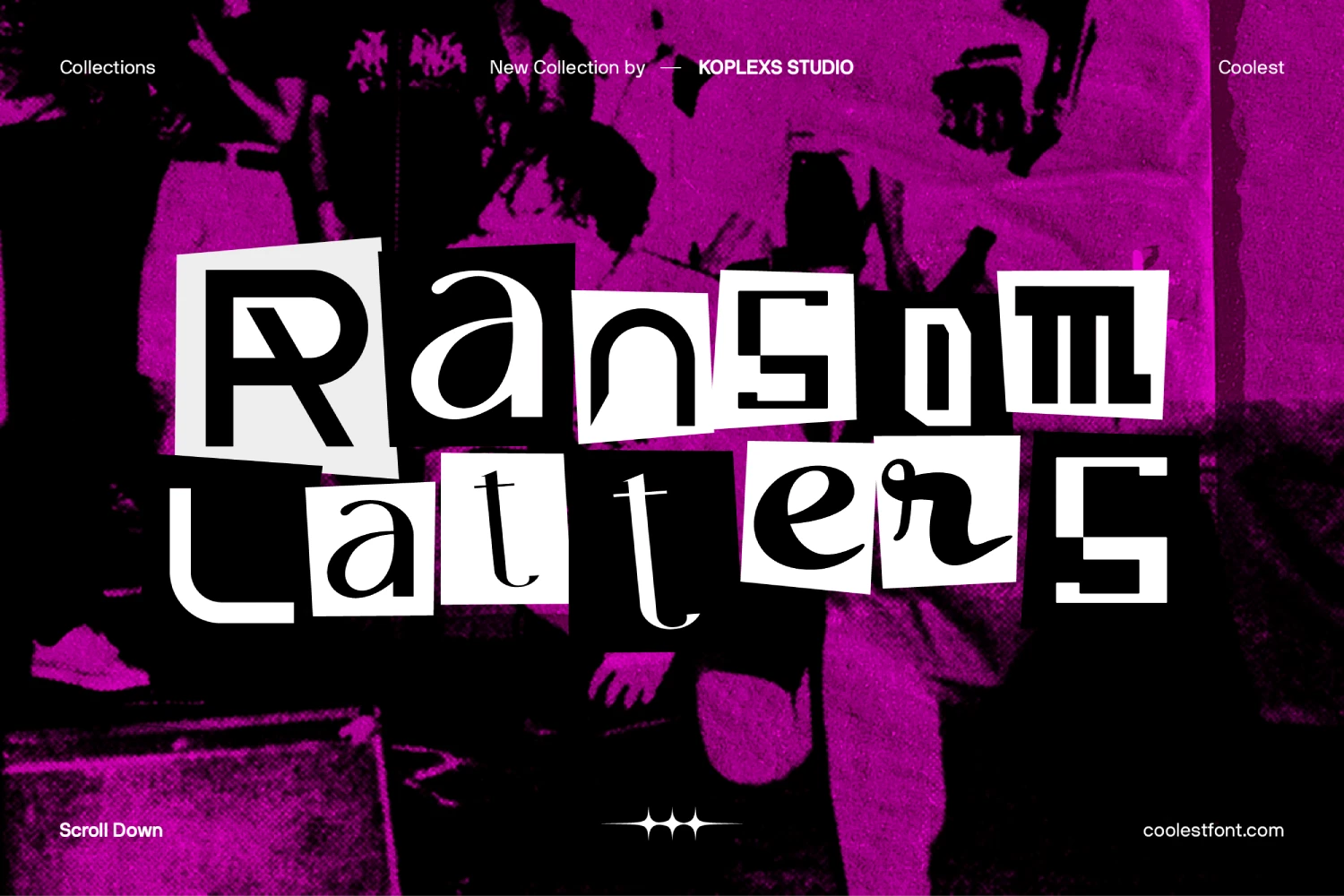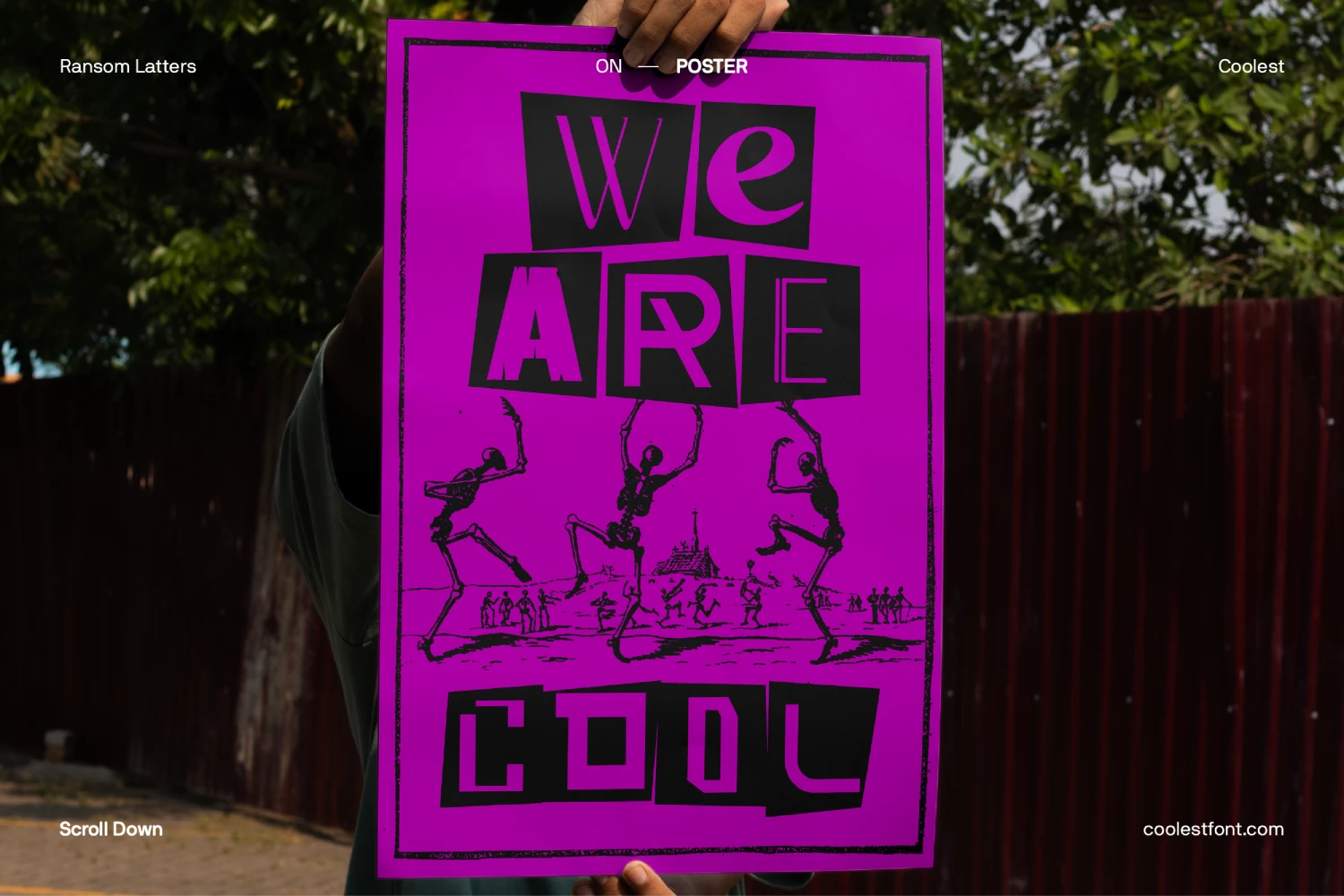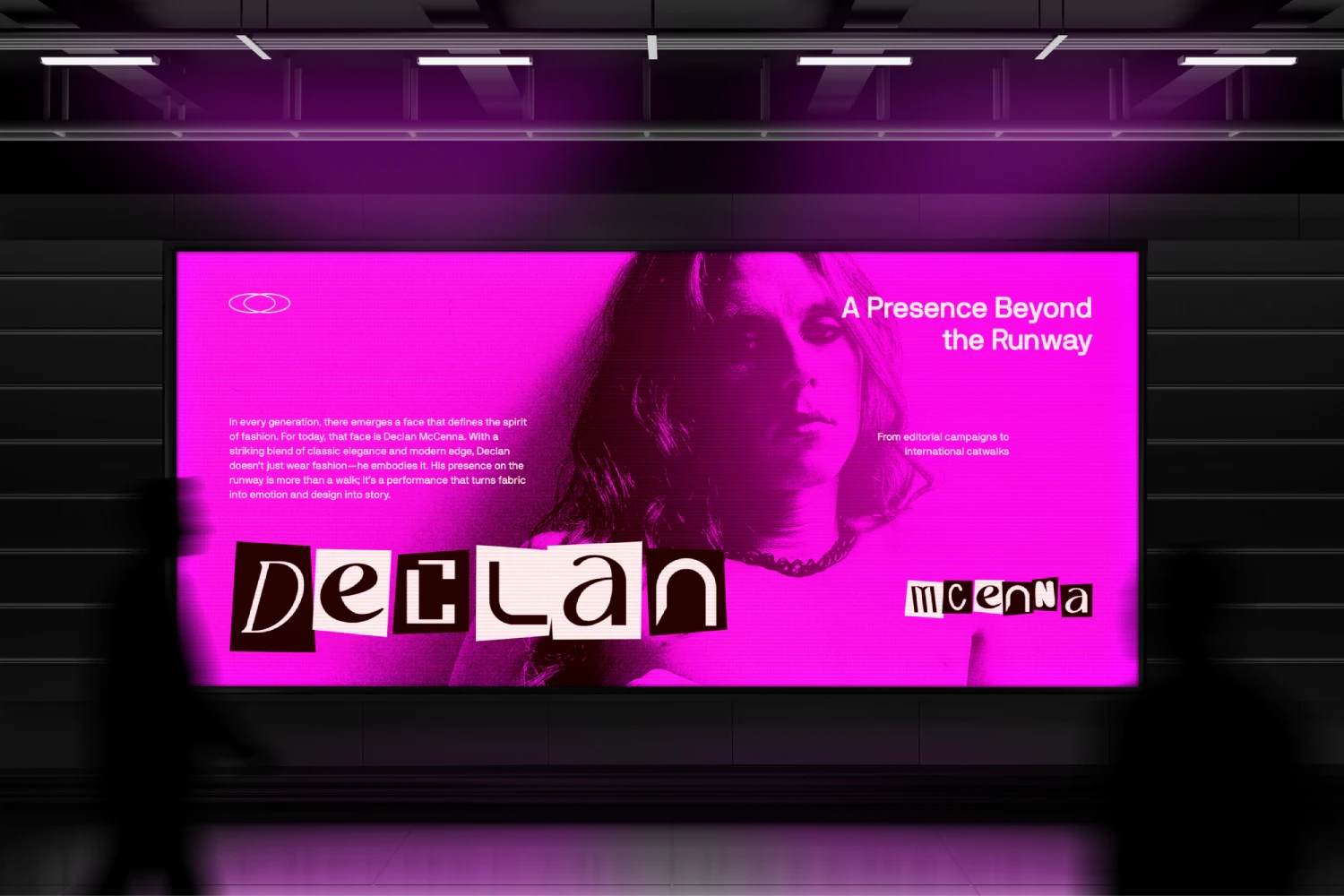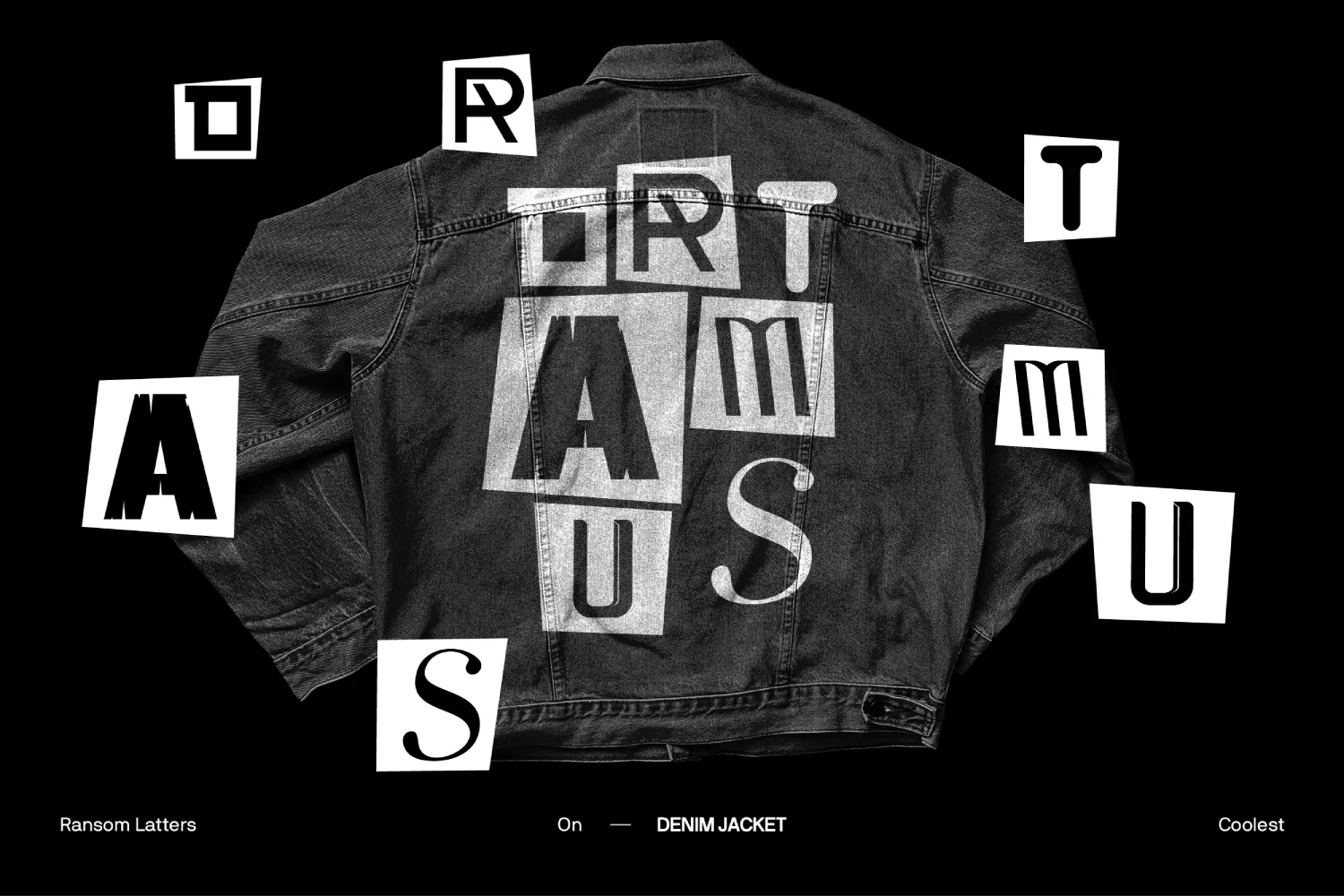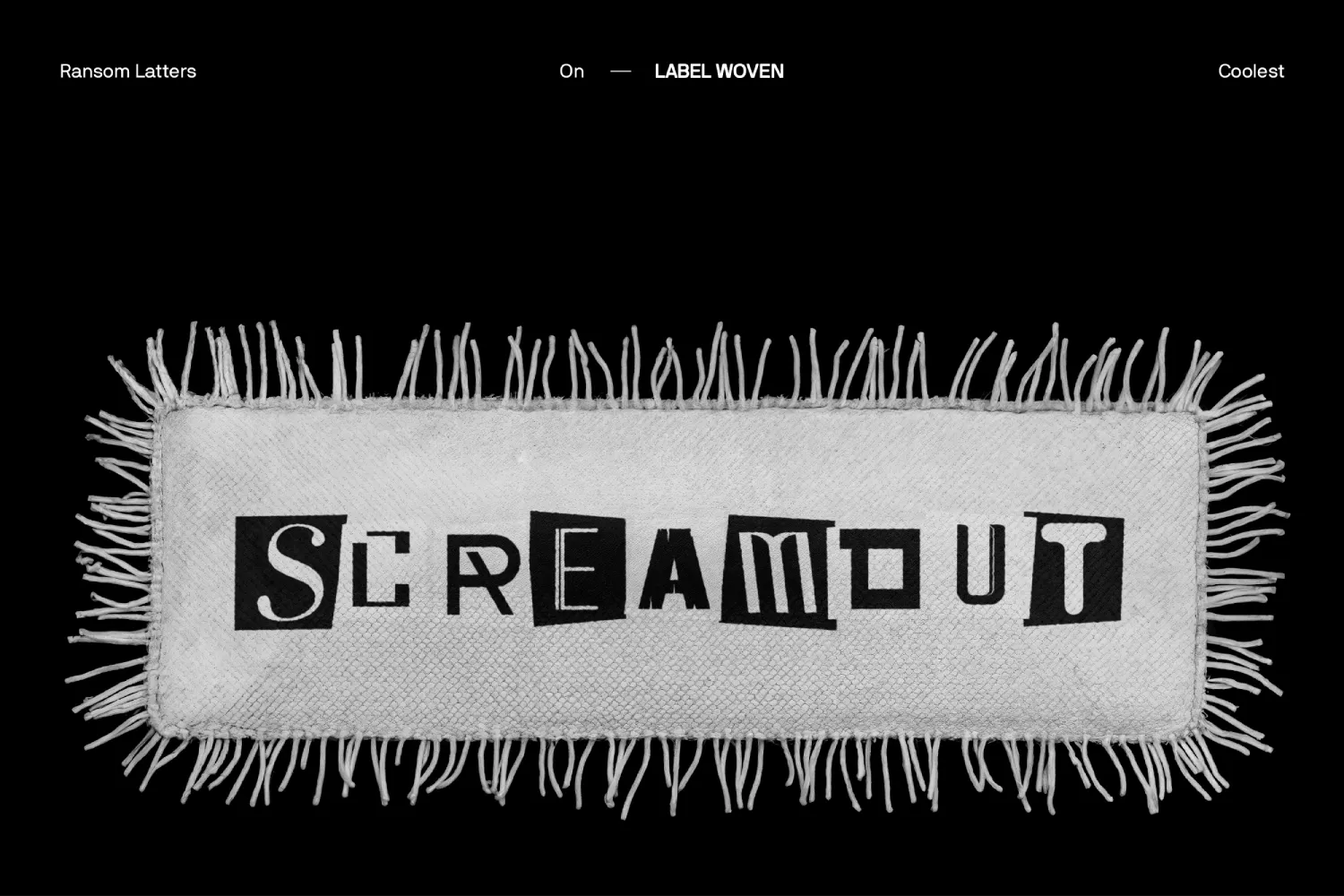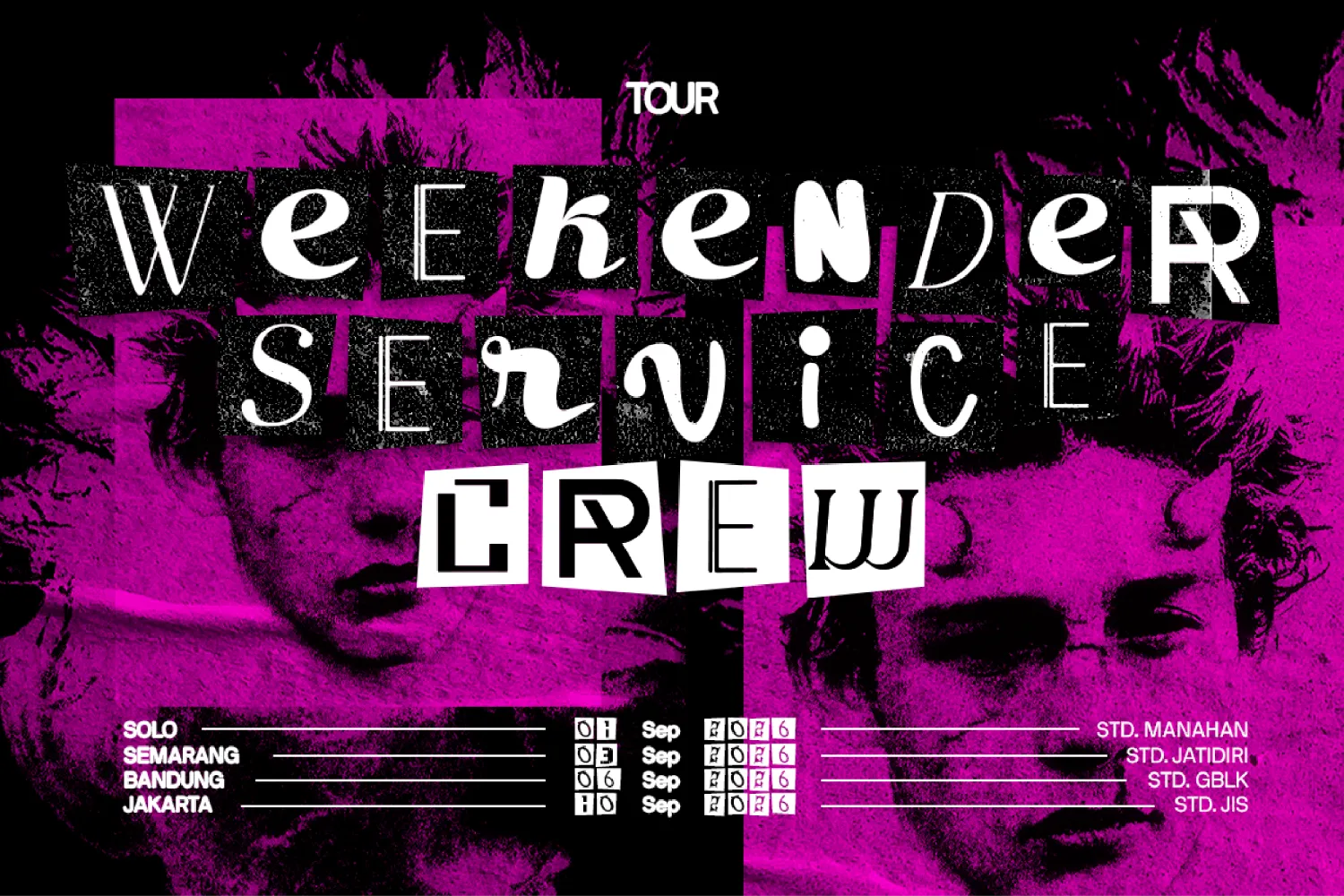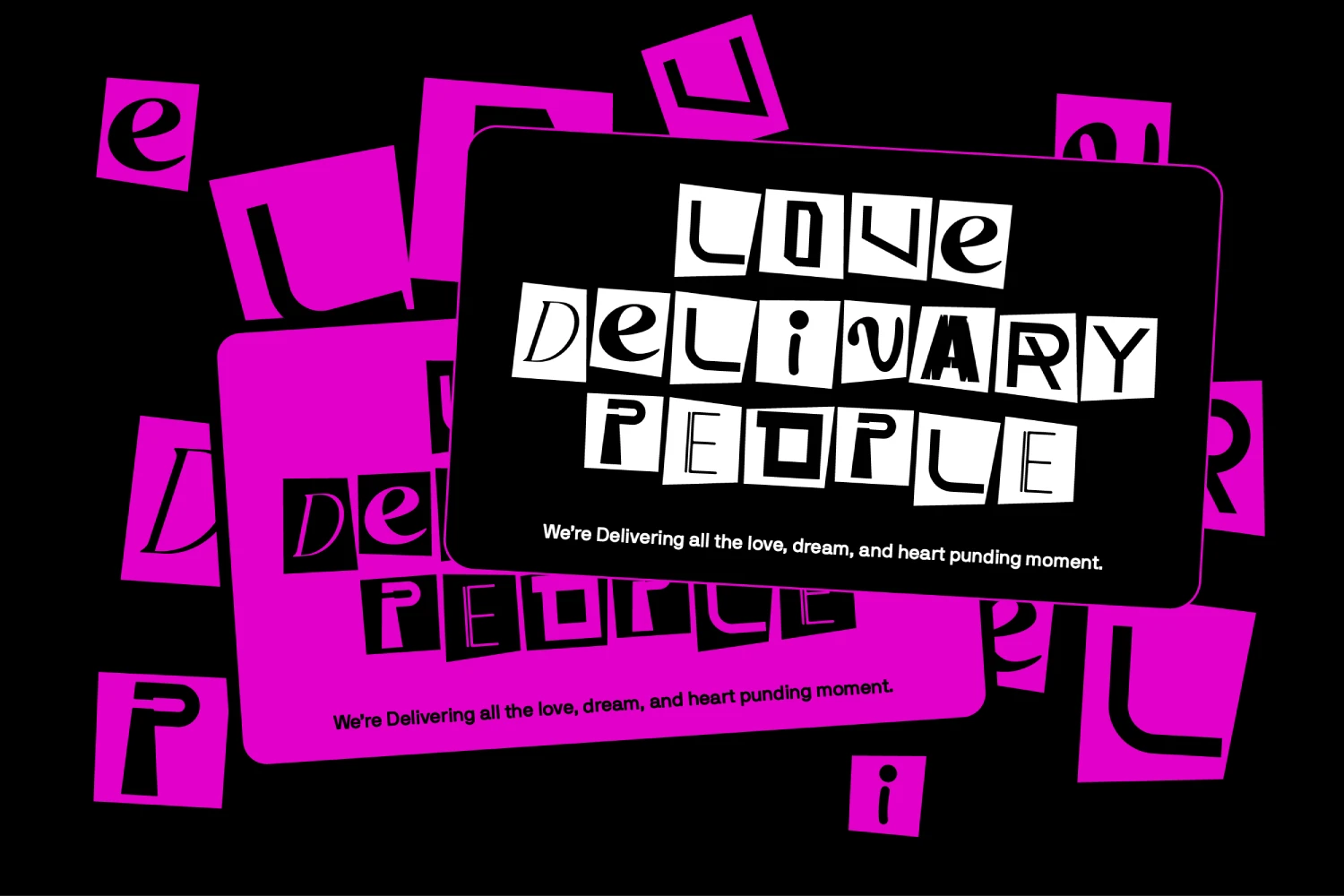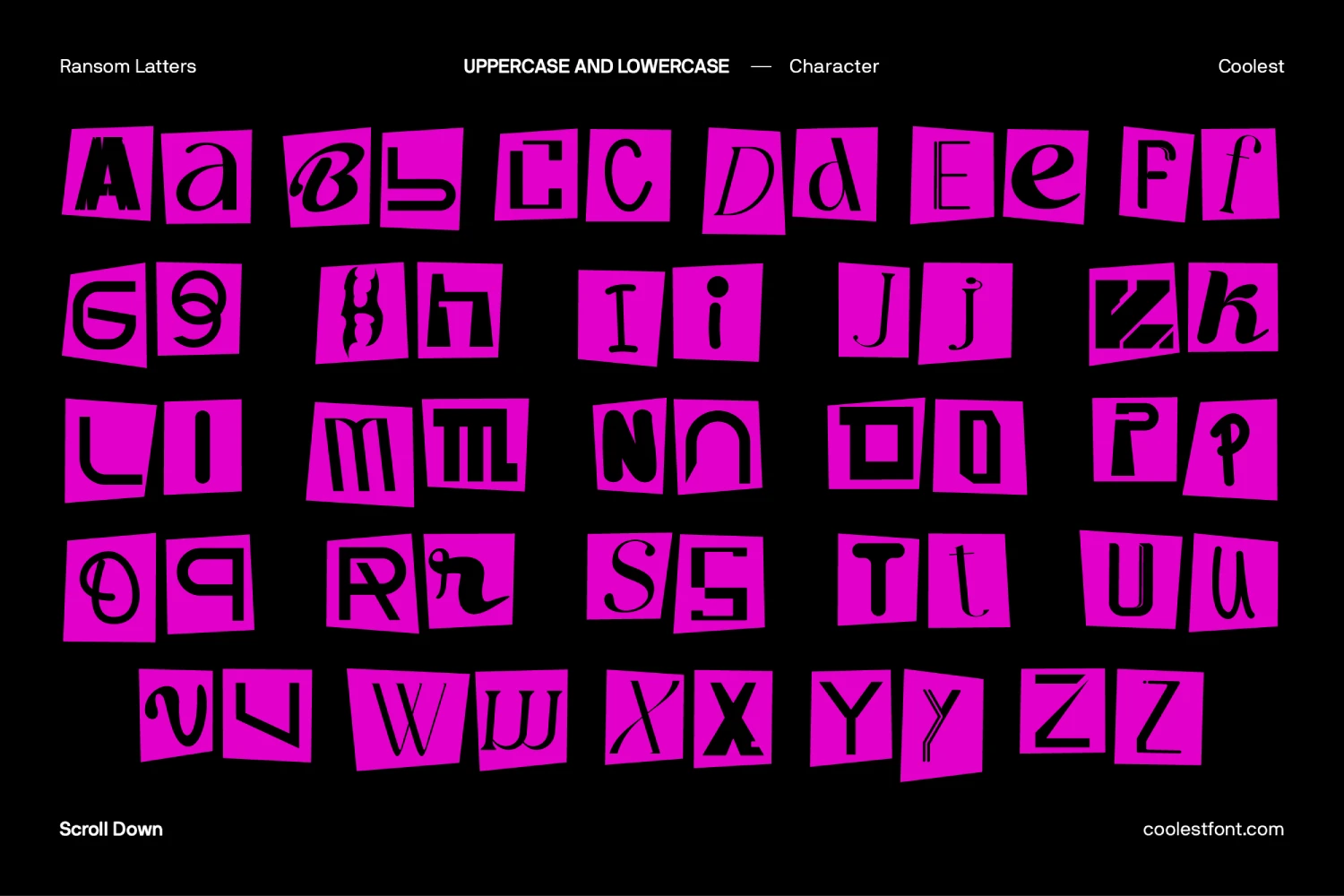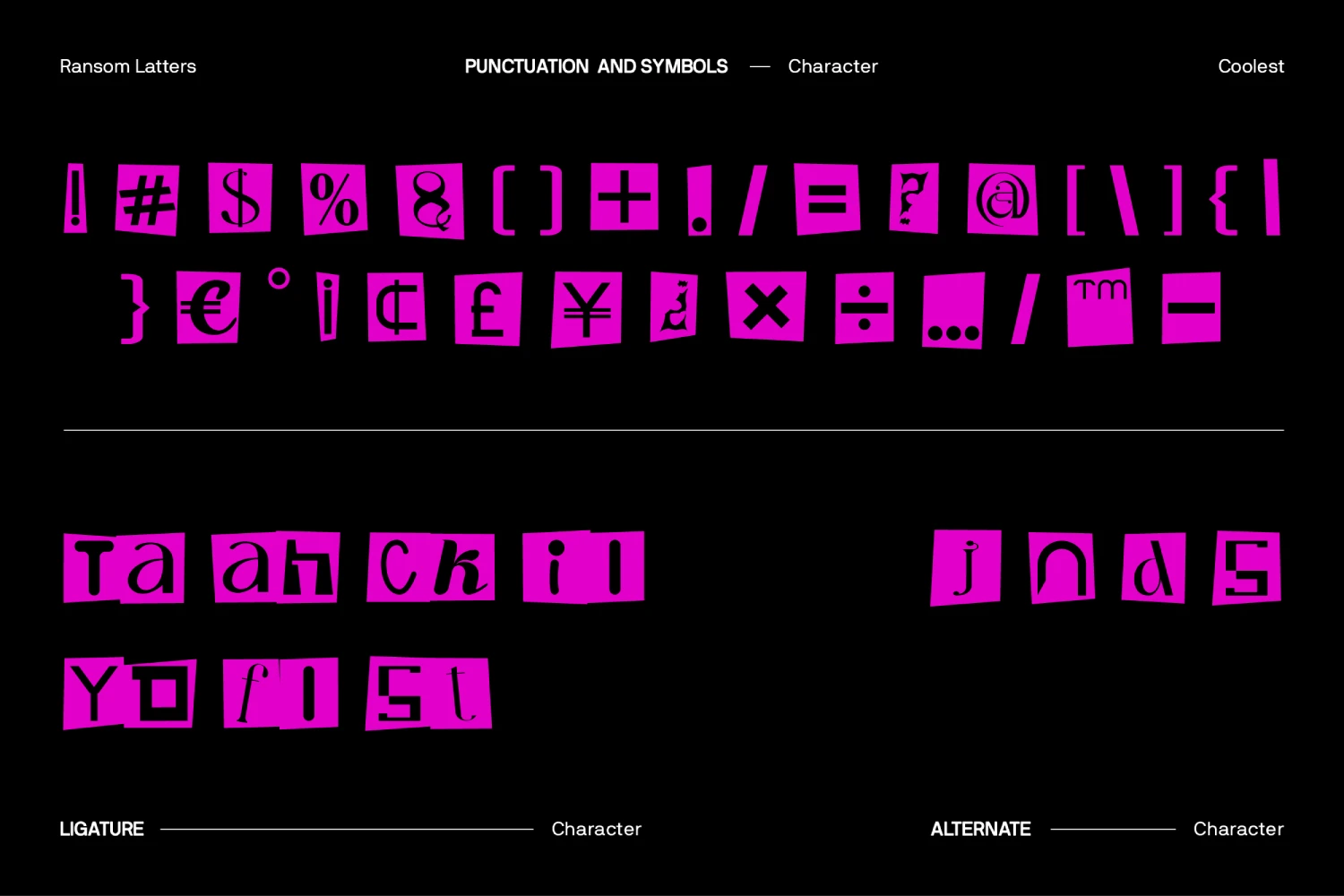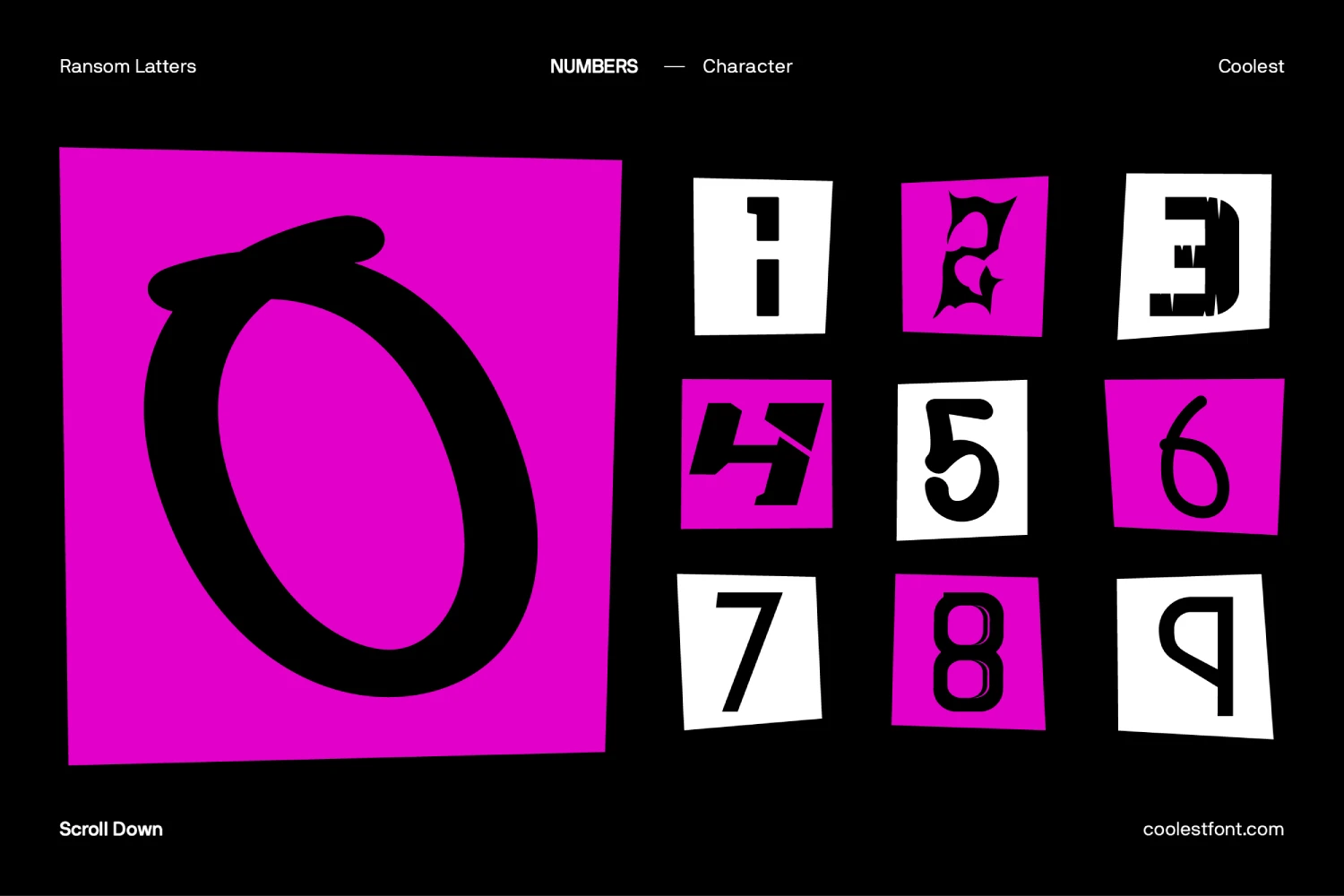
Ransom Latters Font – Modern Playful Display Typeface for Cool Branding, Posters & Logos
Ransom Latters Font is a bold and playful display font inspired by vintage ransom note aesthetics perfect for designers who crave something unique, modern, and artistic. Crafted with mixed shapes and irregular cutout letters, it blends chaos and elegance into one fancy font that instantly grabs attention.
This aesthetic font merges punk-style creativity with clean digital precision, making it a standout choice for edgy and high-impact designs. Whether you’re creating a branding font, poster font, or logo font, Ransom Latters adds that cool font energy your project needs.
Maista Font Features :
- Standard & Multilingual glyphs
- Alternates
- Ligatures
Maista Font Best Suited For :
- Branding & logo design
- Magazine & book covers
- Music albums & fashion posters
- Social media graphics
- Packaging & merchandise (goods font)
- Headlines, titles, and display layouts
Maista Font Key Features:
- Authentic “ransom cut” letterforms for a distinctive look
- Dynamic uppercase and lowercase combination
- Perfect balance of grunge and elegance
- Versatile for modern and luxury branding
Embrace rebellion, playfulness, and modern edge. Ransom Latters Font is your ultimate heading font, headline font, and poster font for creating visuals that scream individuality. A luxury font with an underground soul.